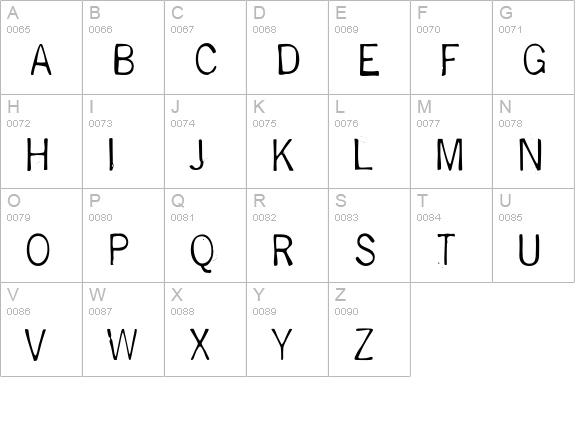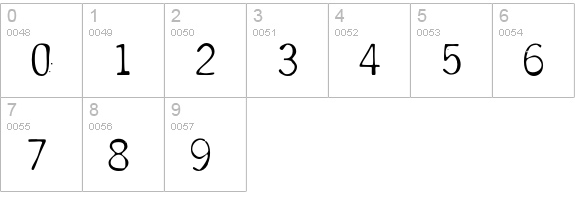
DeGenerate Font Details
Introducing the DeGenerate font, a unique and edgy typeface that exudes a rebellious charm. With its jagged edges and bold strokes, this font is perfect for making a statement in your designs. Whether you're creating posters, album covers, or branding materials, DeGenerate will add a touch of raw energy to your projects. The best part? DeGenerate is completely free to download at FontsMarket.com. You can easily incorporate this striking font into your work without breaking the bank. So go ahead and unleash your creativity with DeGenerate, the font that dares to be different.